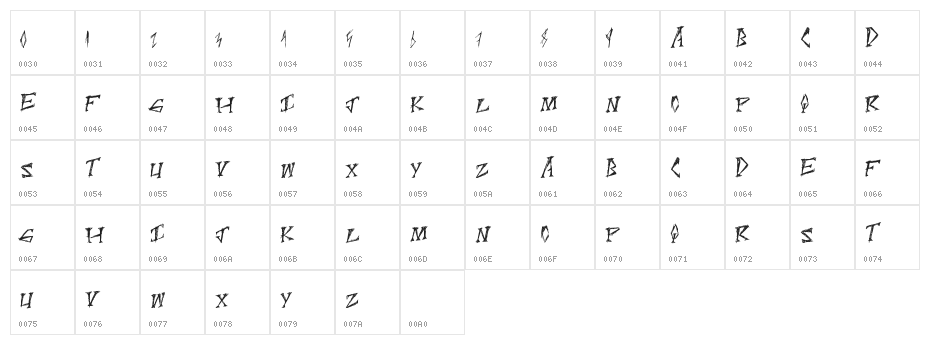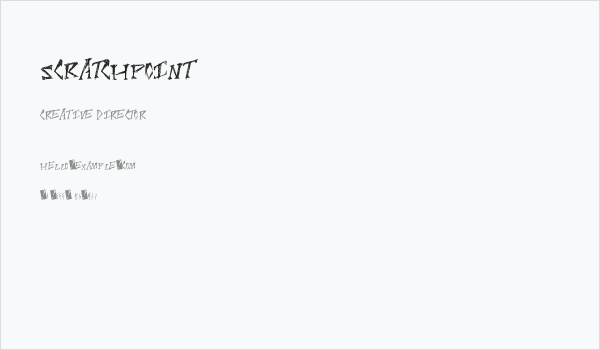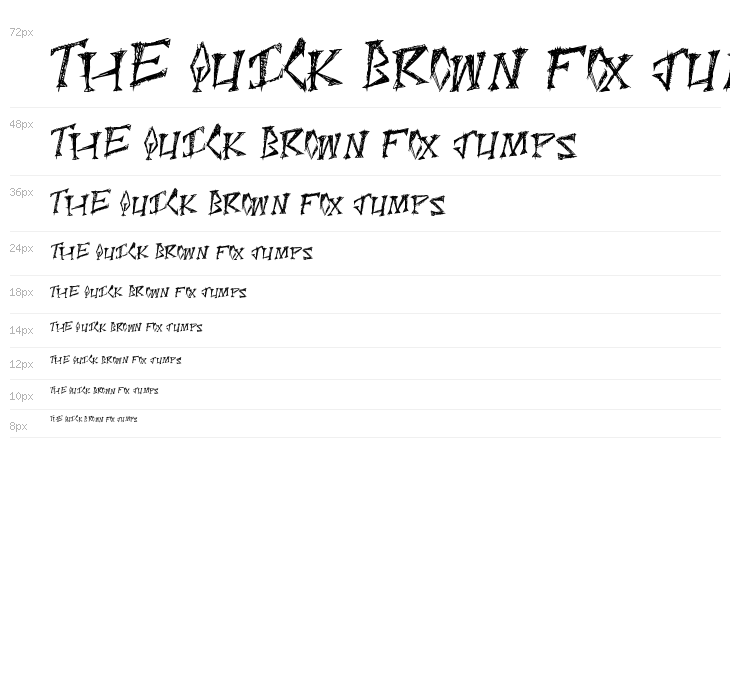
ScratchPoint Font
This font exudes a rugged, edgy aesthetic with its sharp, jagged lines and irregular shapes. Each character appears as if it has been scratched or carved, giving it a raw, untamed look. The uppercase and lowercase letters maintain a consistent style, with angular strokes and pointed edges that create a sense of movement and intensity. The numbers and special characters follow suit, adding to the font's cohesive, rebellious vibe. This font is perfect for projects that require a bold, unconventional statement, capturing attention with its distinctive and aggressive design.
| Overall Style | Modern, Edgy |
| Use Case | Logos, Posters, Headlines |
| Proposed Projects | Ideal for music album covers, extreme sports branding, horror movie posters, and edgy fashion labels. |